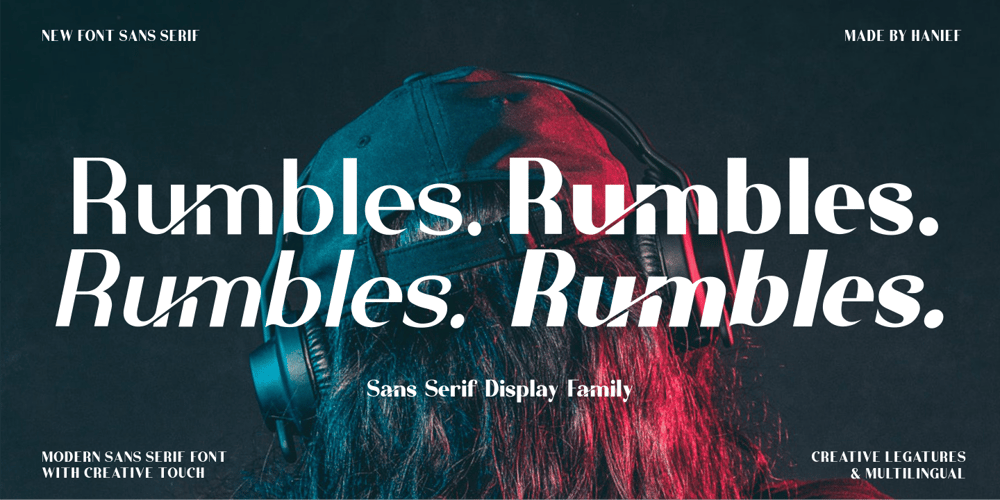
Rumbles Arena Font Family was designed by Hanief Farandi and published by Hanzel Space. Rumbles Arena contains 4 styles and family package options. Rumble sans serif. Combines elegant in letters, making this font look exclusive and elegant. With high letters display and thin in the anatomy of each letter. Rumble is a gorgeous sans-serif typeface that is both classically elegant and inherently modern. Create beautiful wedding invitations, use it as an elegant solution for your next magazine layout, or choose Rumble for any graphics that require a Elegant look with a vintage flair.. Rumble is based on classic letterforms for publishing and display graphics, so you can give your text a classic, elegant feel with Rumble clean.